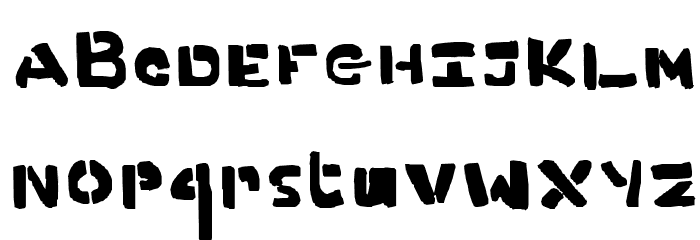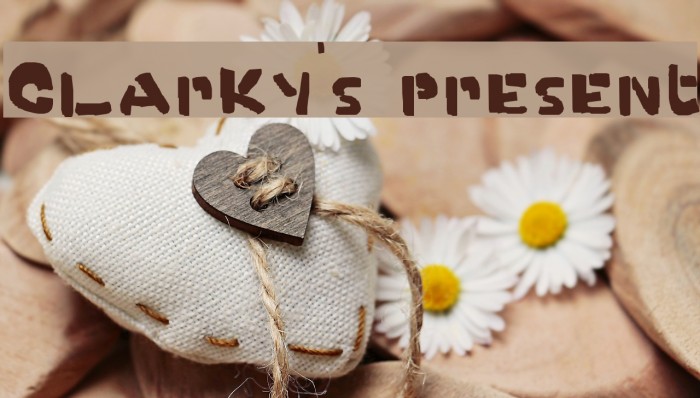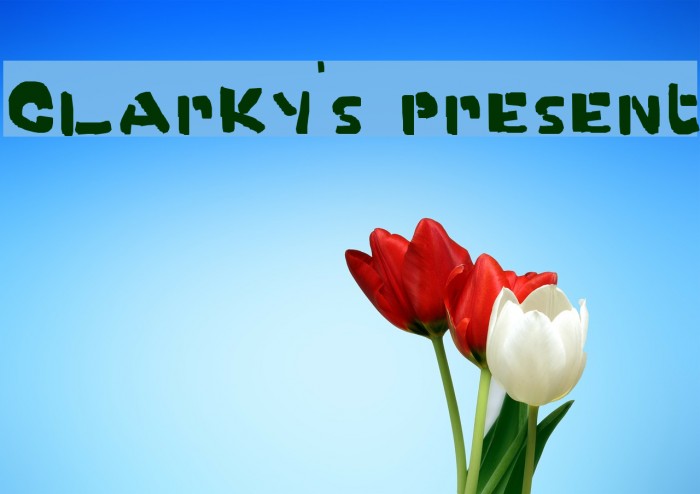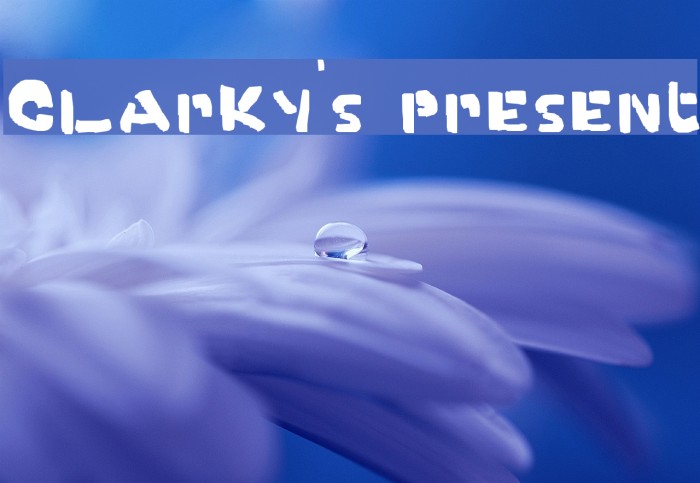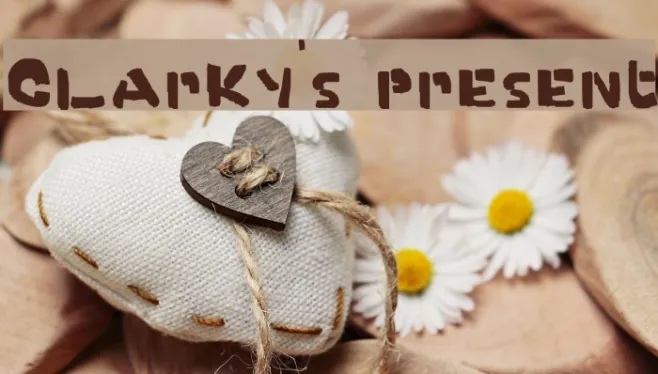
Clarky's present Font
This font exhibits a bold and playful style with a hand-drawn appearance. The characters are uneven and irregular, giving it a unique and artistic flair. The uppercase and lowercase letters maintain a consistent thickness, contributing to a cohesive look. The numbers and special characters follow the same design principles, ensuring uniformity across the font. The overall aesthetic is casual and informal, making it suitable for creative and fun projects. The font's distinctiveness lies in its rough edges and varied line thickness, which adds to its charm and appeal.
A bold, playful, hand-drawn font with irregular, artistic characters.
- Proposed Projects: Ideal for children's books, posters, greeting cards, and creative branding.